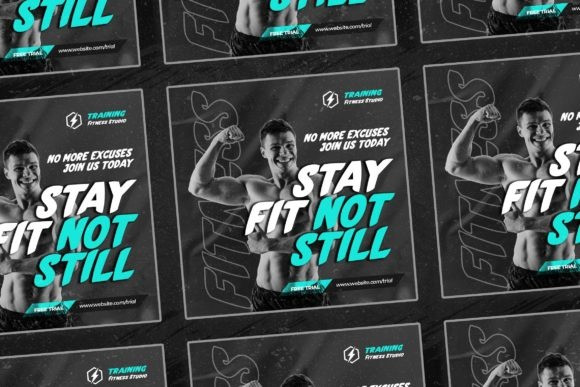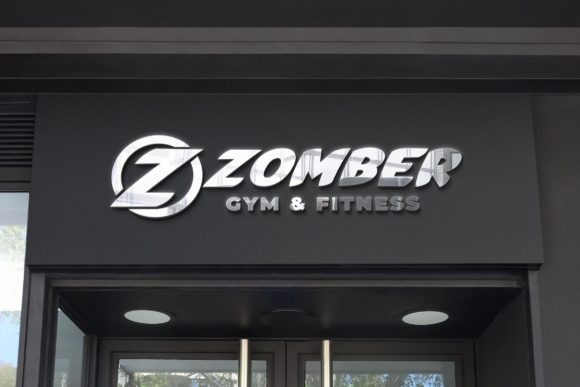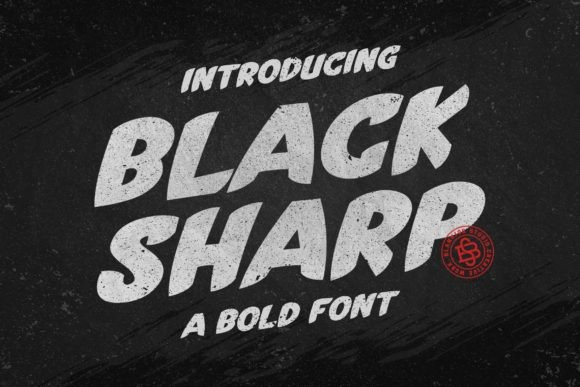
Black Sharp Font
Black Sharp Display Font is a cool and thick lettered display font. Add this beautiful font to each of your creative ideas and notice how it makes them stand out!